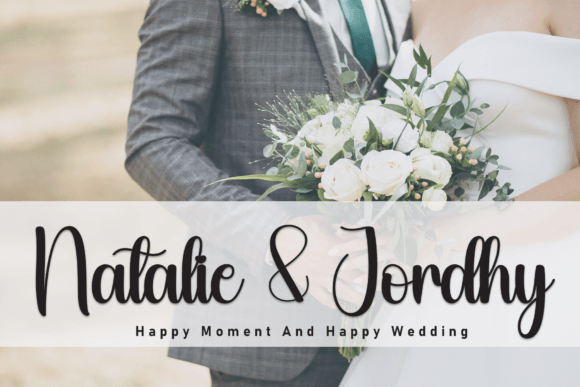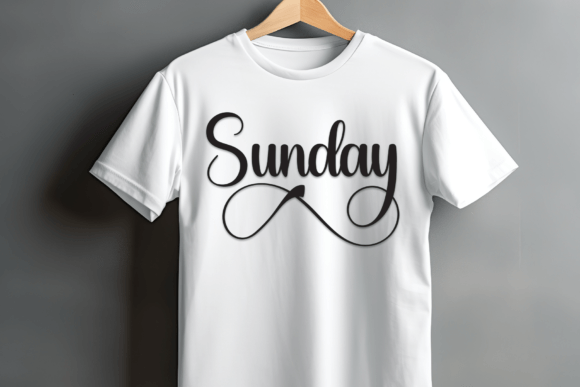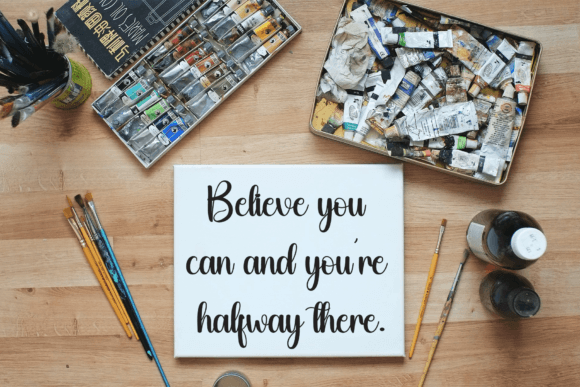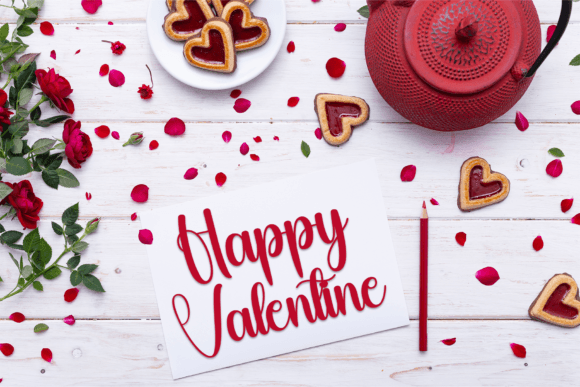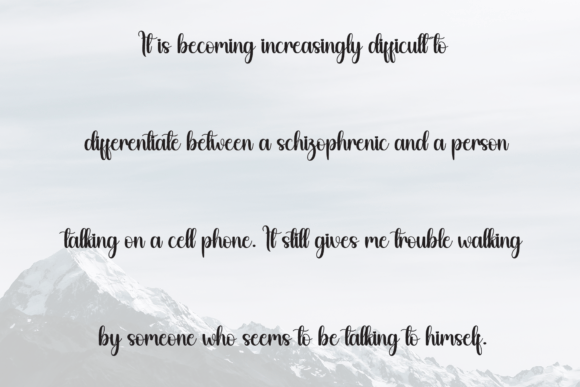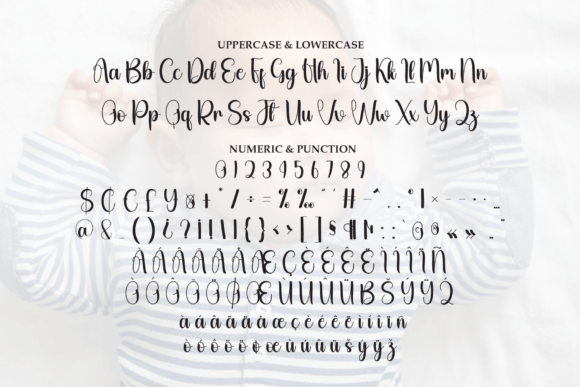
Introducing Chobby Font: The Ultimate Handwritten Font for Creative Projects
Are you tired of using the same old fonts in your design projects? Look no further! Chobby Font is here to revolutionize your creative endeavors with its fresh, contemporary, and fun handwritten style. In this article, we’ll dive into the world of Chobby Font, exploring its features, benefits, and uses, and why it’s about to become your new favorite font.
The Story Behind Chobby Font
Chobby Font is a masterfully crafted handwritten font, designed to bring a touch of personality and whimsy to your designs. Its creators aimed to develop a font that would be both modern and versatile, suitable for a wide range of applications. Whether you’re a designer, crafter, or DIY enthusiast, Chobby Font is the perfect addition to your toolkit.
What Makes Chobby Font So Special?
So, what sets Chobby Font apart from other fonts out there? Here are just a few of its standout features:
- Handwritten style: Chobby Font boasts a beautiful, handwritten aesthetic that’s perfect for adding a personal touch to your designs.
- Contemporary and fresh: Unlike traditional fonts, Chobby Font has a modern feel that’s sure to make your designs stand out.
- Versatile: Whether you’re working on a logo, poster, or social media graphic, Chobby Font adapts seamlessly to any design style.
- Easy to read: Despite its playful nature, Chobby Font remains highly legible, making it perfect for body text and headlines.
Chobby Font is an excellent choice for designers and crafters looking to add a unique touch to their projects. Here are some ways you can use Chobby Font to elevate your designs:
- Branding and logos: Use Chobby Font to create a memorable and eye-catching logo that reflects your brand’s personality.
- Posters and flyers: Add a playful touch to your promotional materials with Chobby Font’s fun and energetic vibe.
- Social media graphics: Stand out on social media with Chobby Font’s modern and fresh style.
- DIY projects: From crafting to scrapbooking, Chobby Font is the perfect addition to your DIY projects, adding a personal and creative touch.
Tips for Using Chobby Font Effectively
To get the most out of Chobby Font, here are some expert tips:
- Mix and match: Combine Chobby Font with other fonts to create a unique and visually appealing design.
- Experiment with colors: Chobby Font looks great in a variety of colors, so don’t be afraid to try out different hues and combinations.
- Play with sizes: Use Chobby Font in different sizes to create visual interest and hierarchy in your designs.
In conclusion, Chobby Font is a game-changing handwritten font that’s perfect for designers, crafters, and DIY enthusiasts. Its unique blend of modernity, freshness, and playfulness makes it an excellent addition to any design project. With its versatility, legibility, and aesthetic appeal, Chobby Font is sure to become your new go-to font. So why wait? Download Chobby Font today and take your designs to the next level!